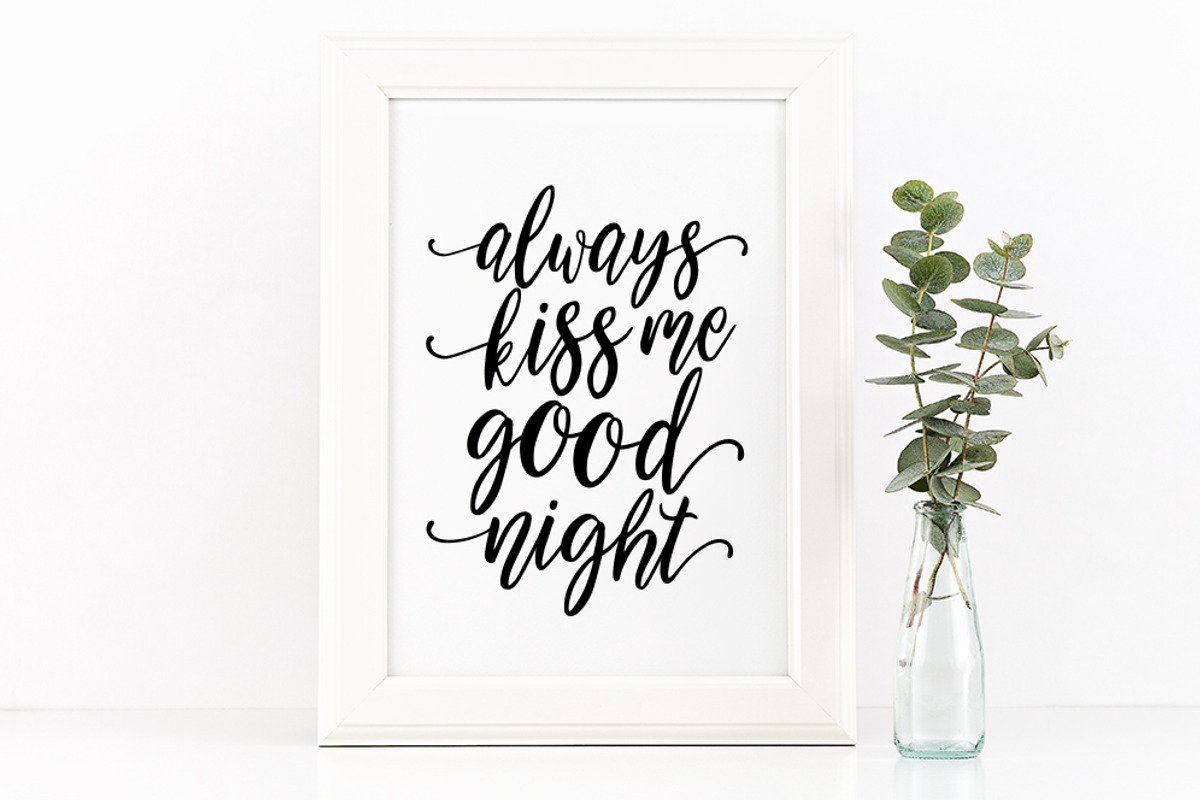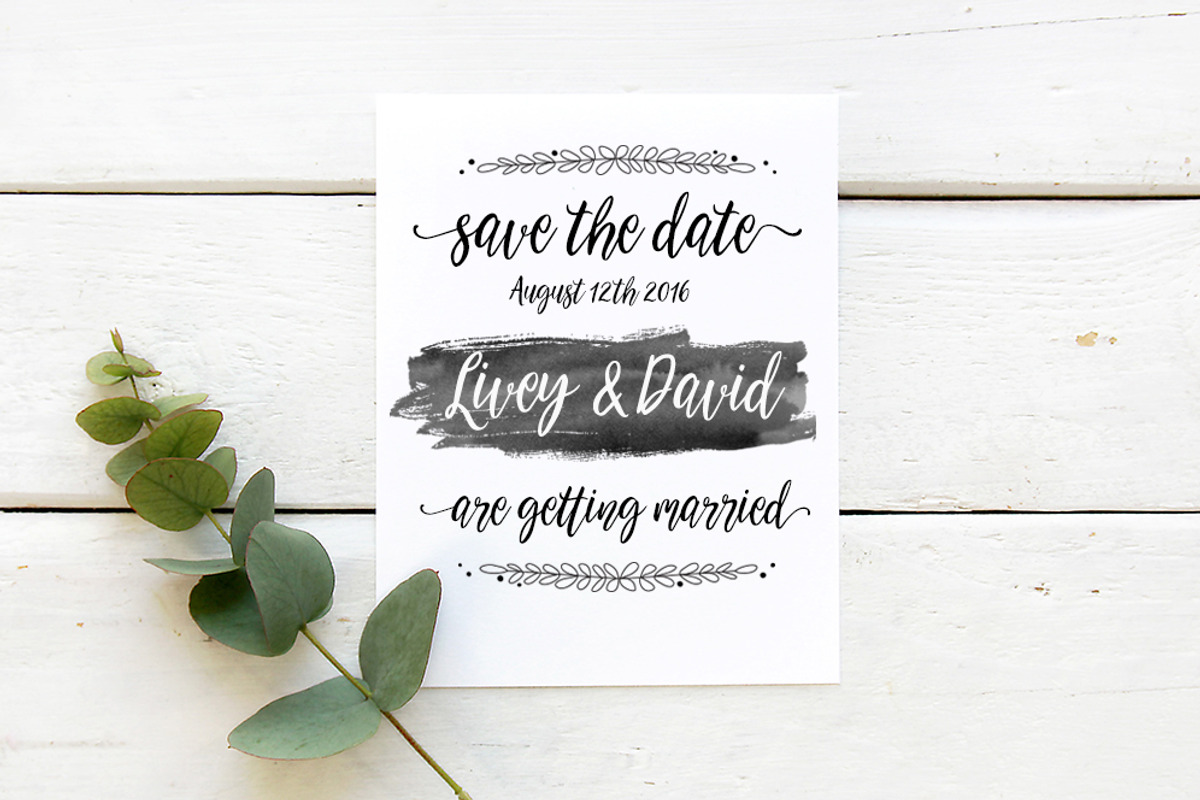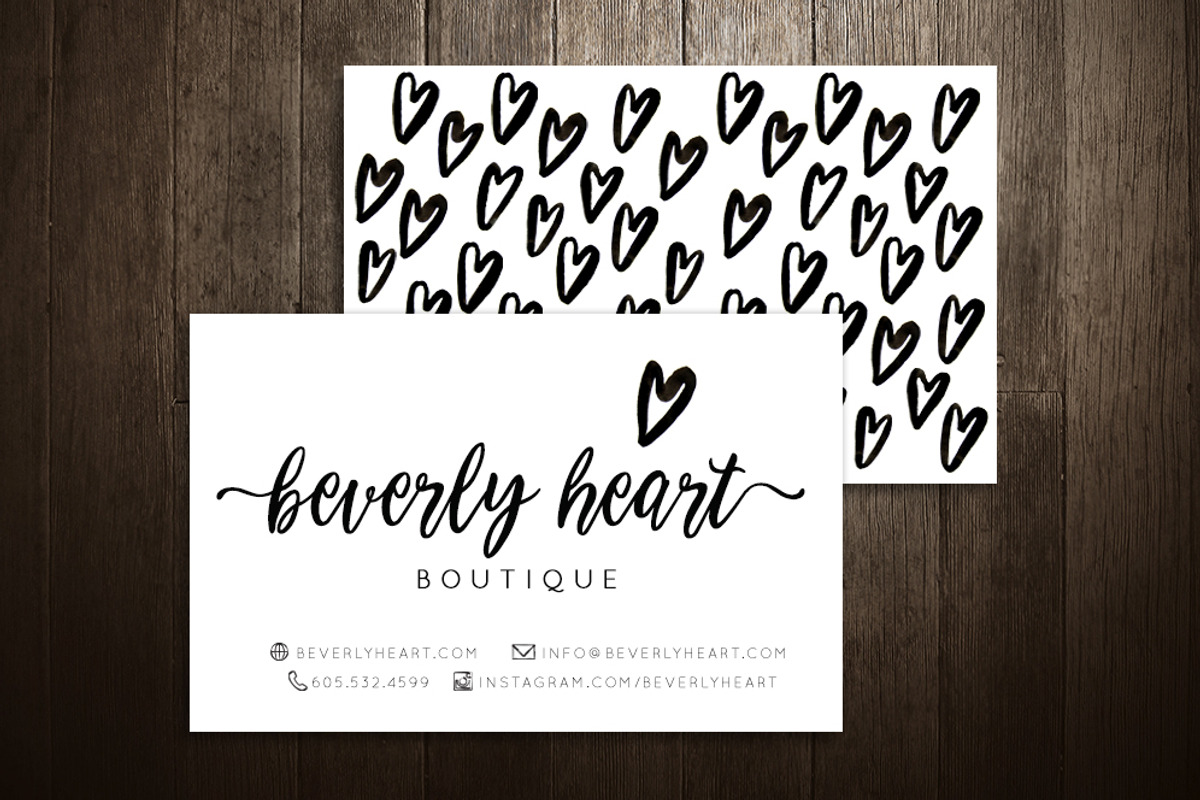
Willow Bloom modern calligraphy font
Willow Bloom modern calligraphy font by Angele Kamp is a font selected for branding, posters, packaging, typography.
Why Willow Bloom modern calligraphy font is worth a look
Willow Bloom modern calligraphy font by Angele Kamp fits naturally into Branding, posters, packaging, typography.